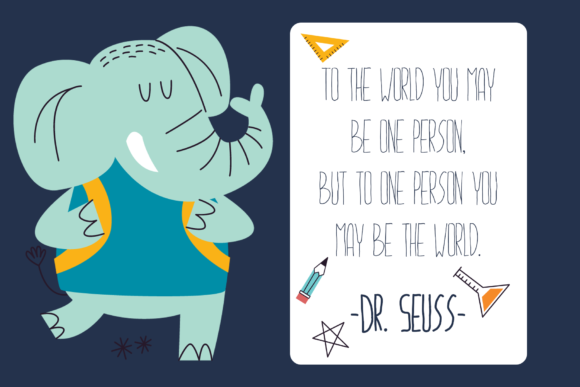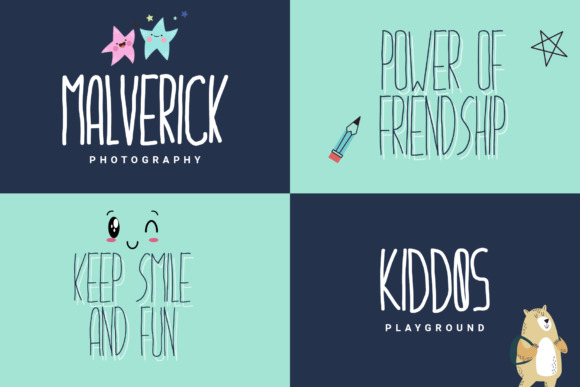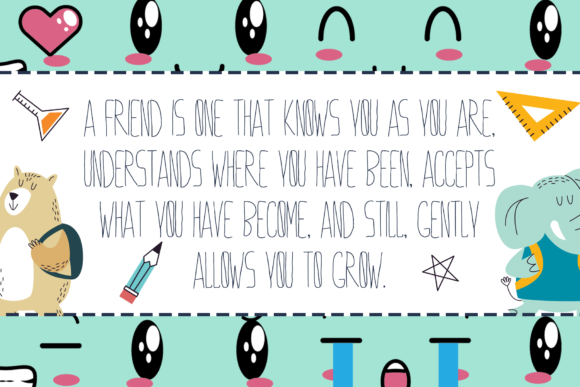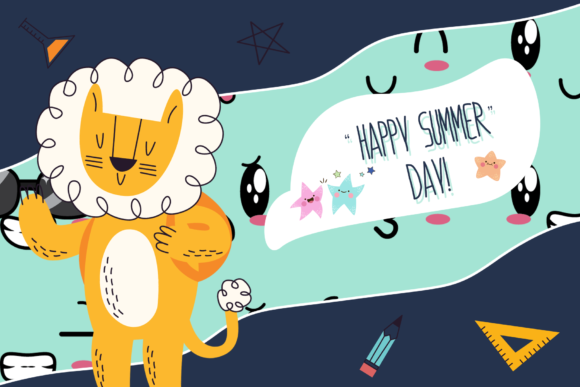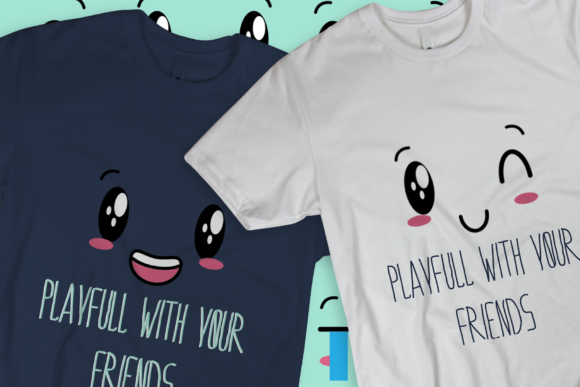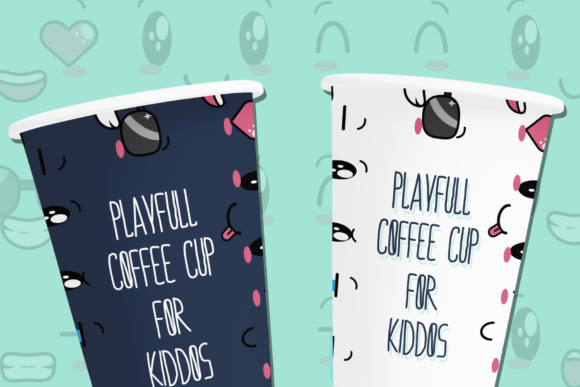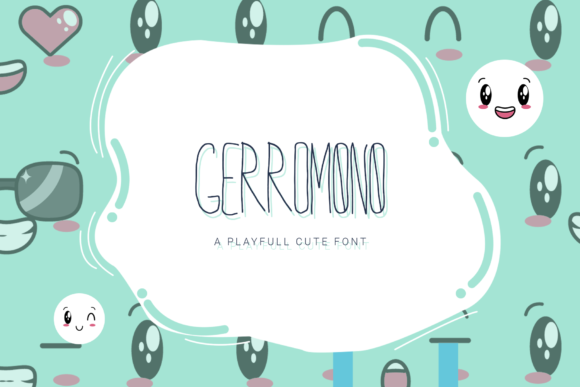
Introducing Gerromono Font: The Ultimate Display Font for Creative Standouts
Are you tired of using the same old fonts for your creative projects? Look no further than Gerromono Font, a unique and enchanting display font that embodies fun, quirkiness, and authenticity. With Gerromono, you can turn any creative idea into a true standout that captures attention and leaves a lasting impression.
The Story Behind Gerromono Font
Gerromono Font is a carefully crafted display font designed to add a touch of whimsy and personality to your creative projects. Its unique design is inspired by the art of playful typography, making it perfect for designers, crafters, and anyone looking to add a dash of fun to their work. Whether you’re creating a logo, poster, or social media graphic, Gerromono Font is sure to make your project stand out from the crowd.
What Makes Gerromono Font So Special?
So, what sets Gerromono Font apart from other display fonts on the market? Here are just a few of its standout features:
- Unique and Quirky Design: Gerromono Font boasts a one-of-a-kind design that’s sure to turn heads. Its playful curves and lines add a touch of whimsy to any project.
- Authentic and Hand-Crafted Feel: Unlike generic fonts, Gerromono Font has an authentic, hand-crafted feel that’s perfect for designers and crafters looking to add a personal touch to their work.
- Highly Versatile: Gerromono Font is perfect for a wide range of creative projects, from logos and posters to social media graphics and more.
- Easily Readable: Despite its quirky design, Gerromono Font is surprisingly easy to read, making it perfect for headlines, titles, and short paragraphs of text.
How to Use Gerromono Font in Your Creative Projects
Gerromono Font is incredibly easy to use and can be incorporated into a wide range of creative projects. Here are a few ideas to get you started:
- Logos and Branding: Use Gerromono Font to create a unique and memorable logo that sets your brand apart.
- Posters and Flyers: Add a touch of whimsy to your posters and flyers with Gerromono Font, perfect for promoting events, products, or services.
- Social Media Graphics: Use Gerromono Font to create eye-catching social media graphics that grab attention and drive engagement.
- Packaging and Label Design: Add a personal touch to your packaging and label design with Gerromono Font, perfect for crafters and small business owners.
Tips and Tricks for Getting the Most Out of Gerromono Font
To get the most out of Gerromono Font, here are a few tips and tricks to keep in mind:
- Experiment with Different Sizes and Colors: Gerromono Font looks great in a variety of sizes and colors, so don’t be afraid to experiment and find the perfect combination for your project.
- Pair with Other Fonts: Gerromono Font pairs perfectly with other fonts, so try combining it with a clean sans-serif font for added contrast.
- Use it Sparingly: While Gerromono Font is incredibly versatile, it’s best used sparingly to add emphasis and visual interest to your project.
In conclusion, Gerromono Font is a unique and enchanting display font that’s perfect for designers, crafters, and anyone looking to add a touch of fun and quirkiness to their creative projects. With its highly versatile design, authentic feel, and easily readable text, Gerromono Font is sure to turn any creative idea into a true standout. So why wait? Download Gerromono Font today and start creating your own standout projects!